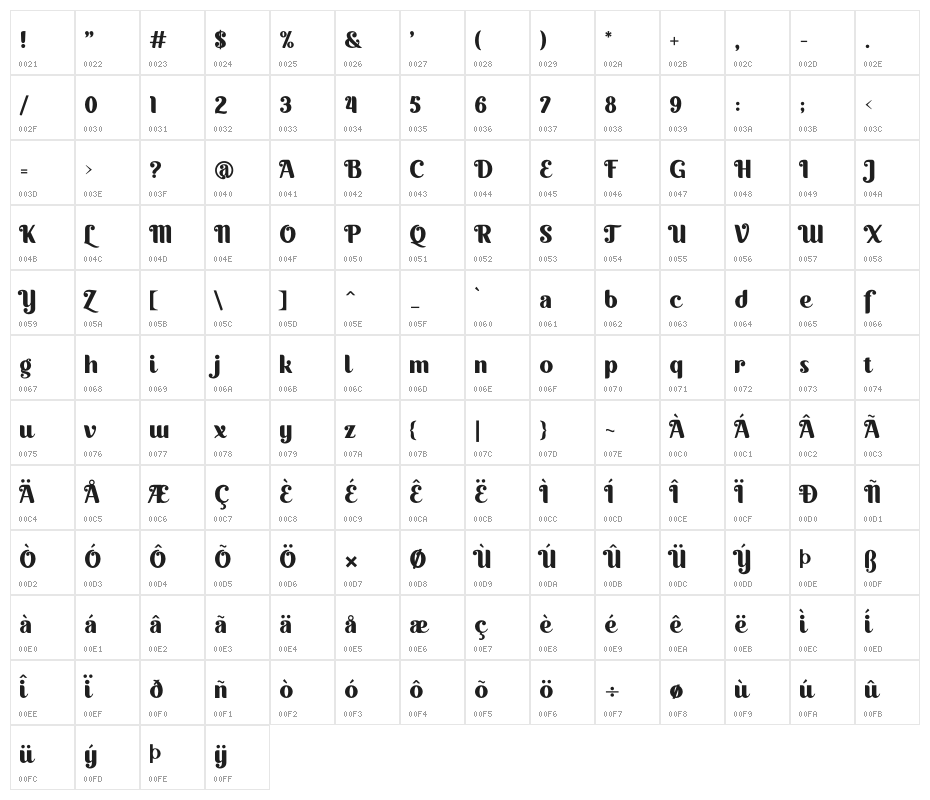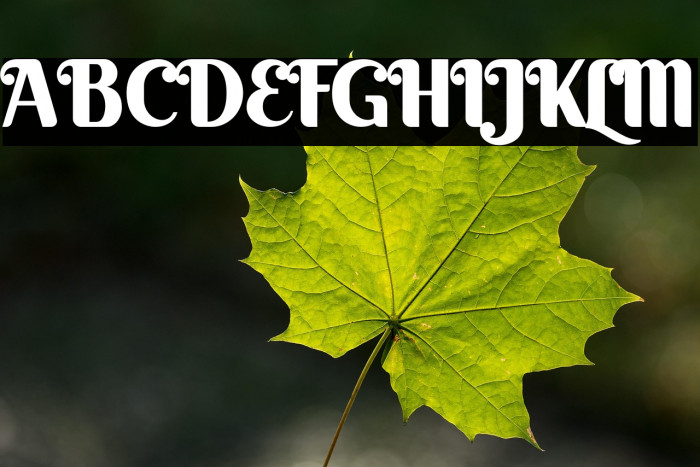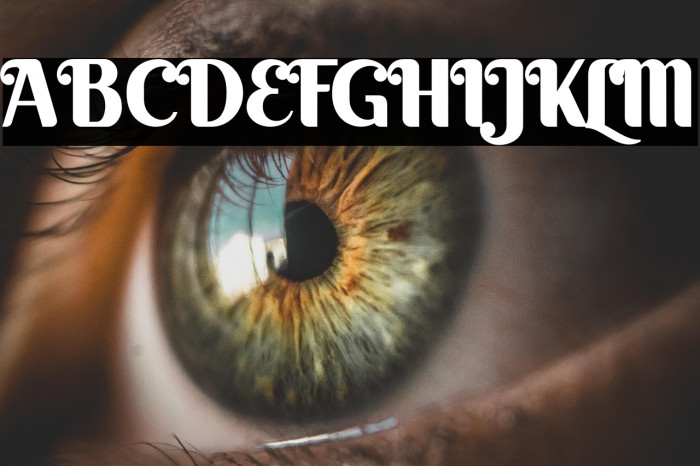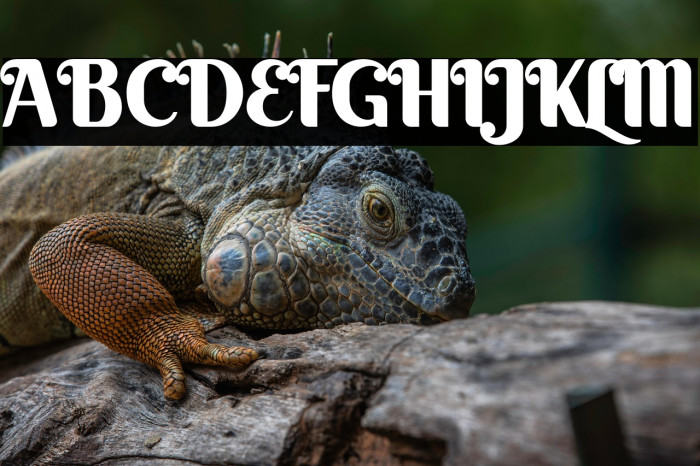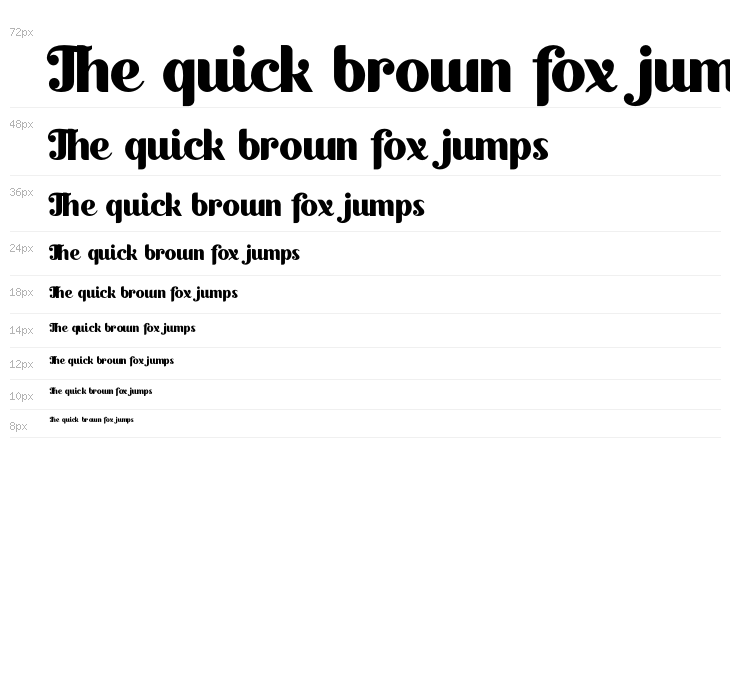
Quacker Font
Quacker Description
This font features a bold and playful design with a distinctive flair. The characters are rounded with a slight slant, giving them a dynamic and energetic appearance. The uppercase letters are particularly striking, with exaggerated curves and a sense of movement. The lowercase letters maintain this lively style, ensuring consistency throughout the typeface. The numerals are bold and easy to read, while the special characters complement the overall aesthetic. This font's unique style makes it stand out, perfect for projects that require a touch of whimsy and creativity.
| Overall Style | Playful, Energetic, Creative |
| Proposed Projects | Ideal for children's books, playful branding, event posters, and creative packaging. |